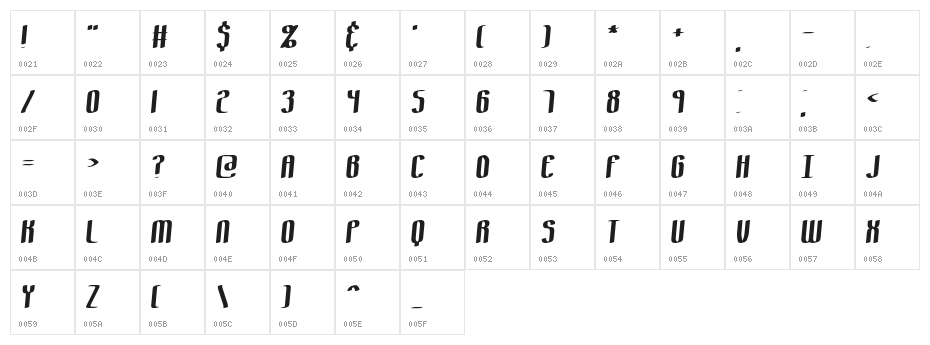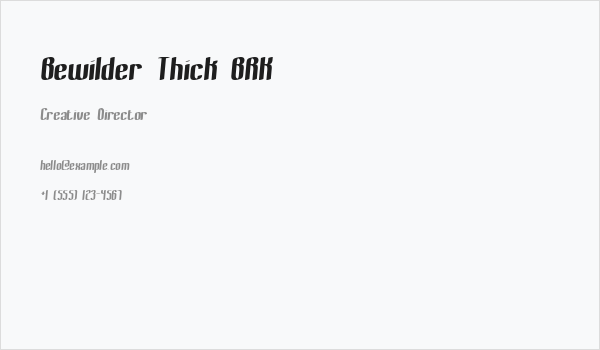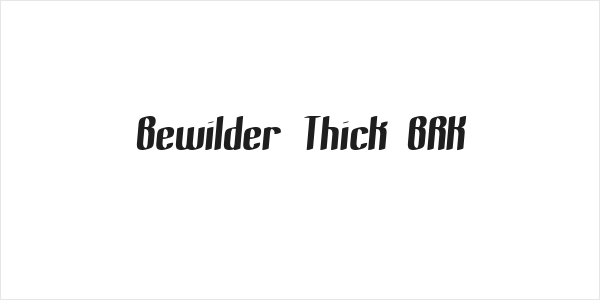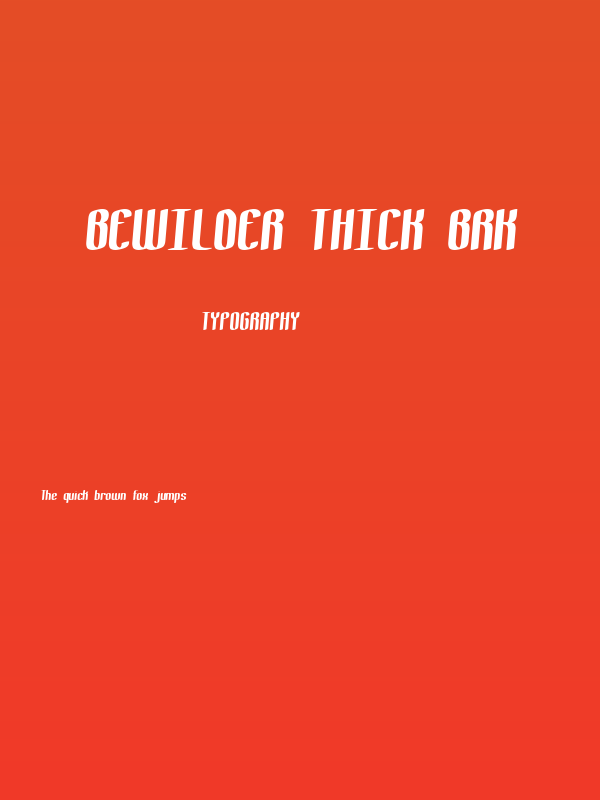
Bewilder Thick BRK Font
Bewilder Thick BRK Description
This font features bold, elongated characters with a distinct slant, giving it a dynamic and energetic appearance. The strokes are thick and consistent, providing a strong visual impact. The uppercase letters are tall and narrow, while the lowercase letters maintain a similar style with slightly more curvature. Numbers and special characters follow the same bold and slanted design, ensuring uniformity across all elements. The overall look is modern and eye-catching, making it suitable for attention-grabbing designs.
| Proposed Projects | Ideal for posters, headlines, branding, and any design requiring a strong visual impact. |